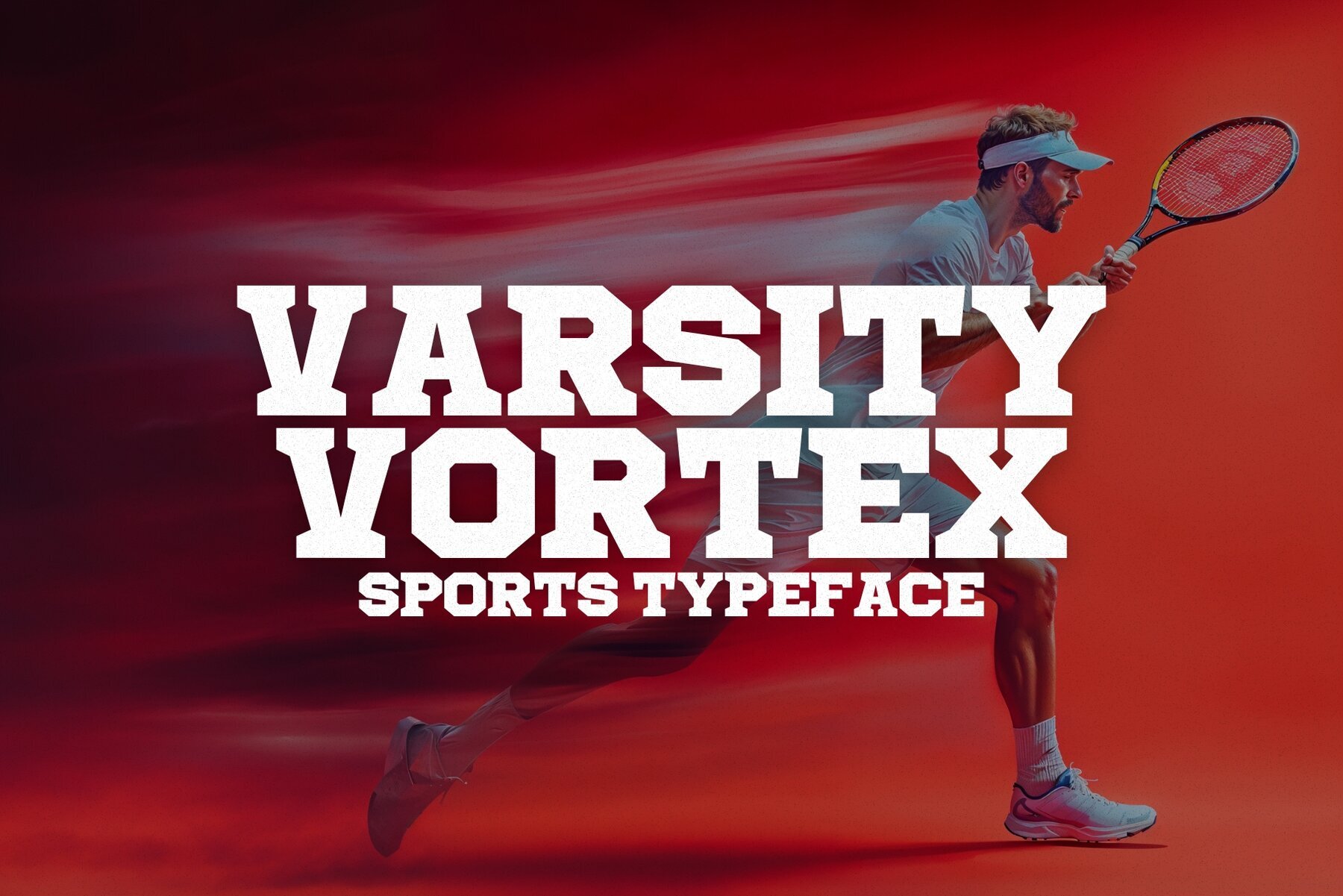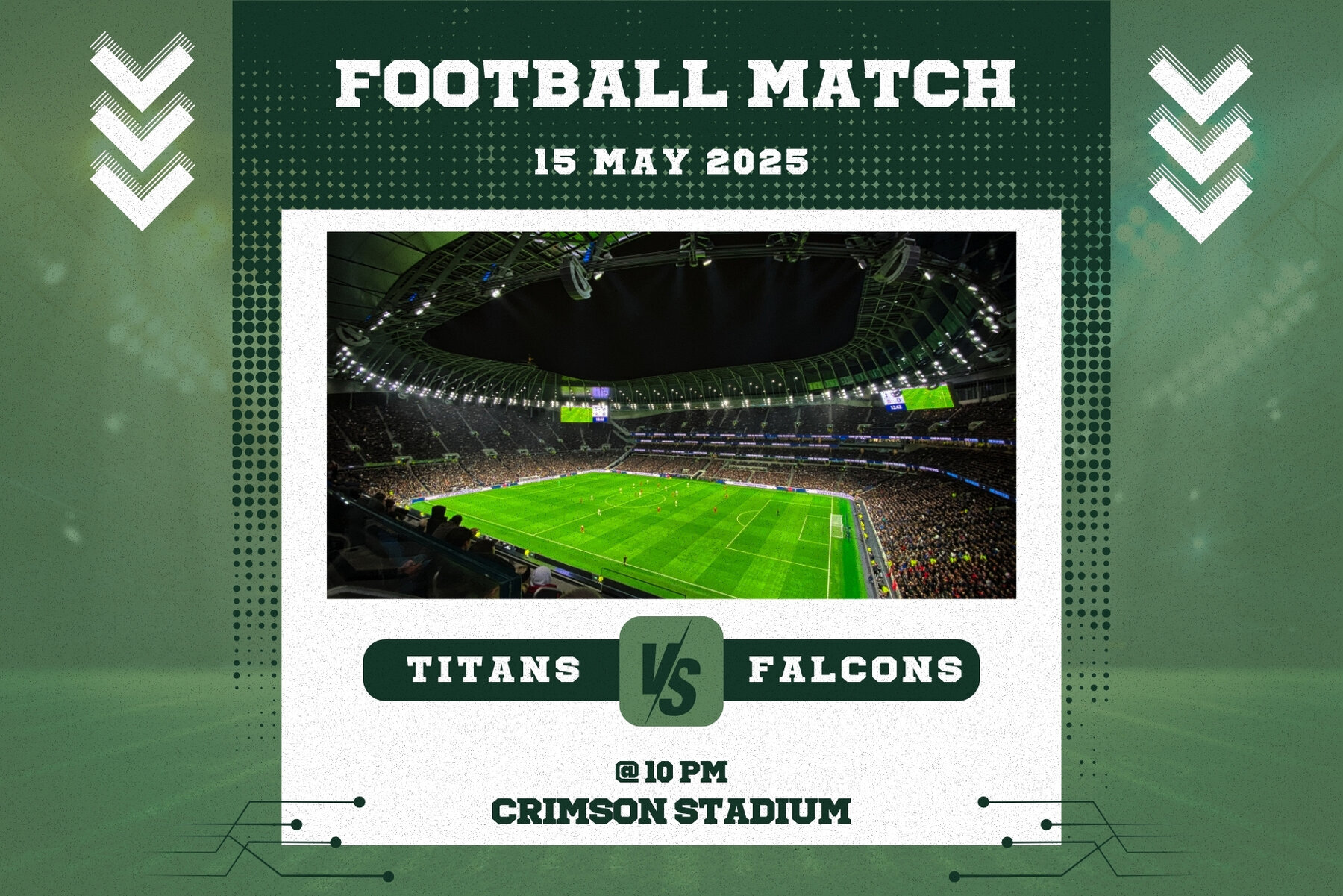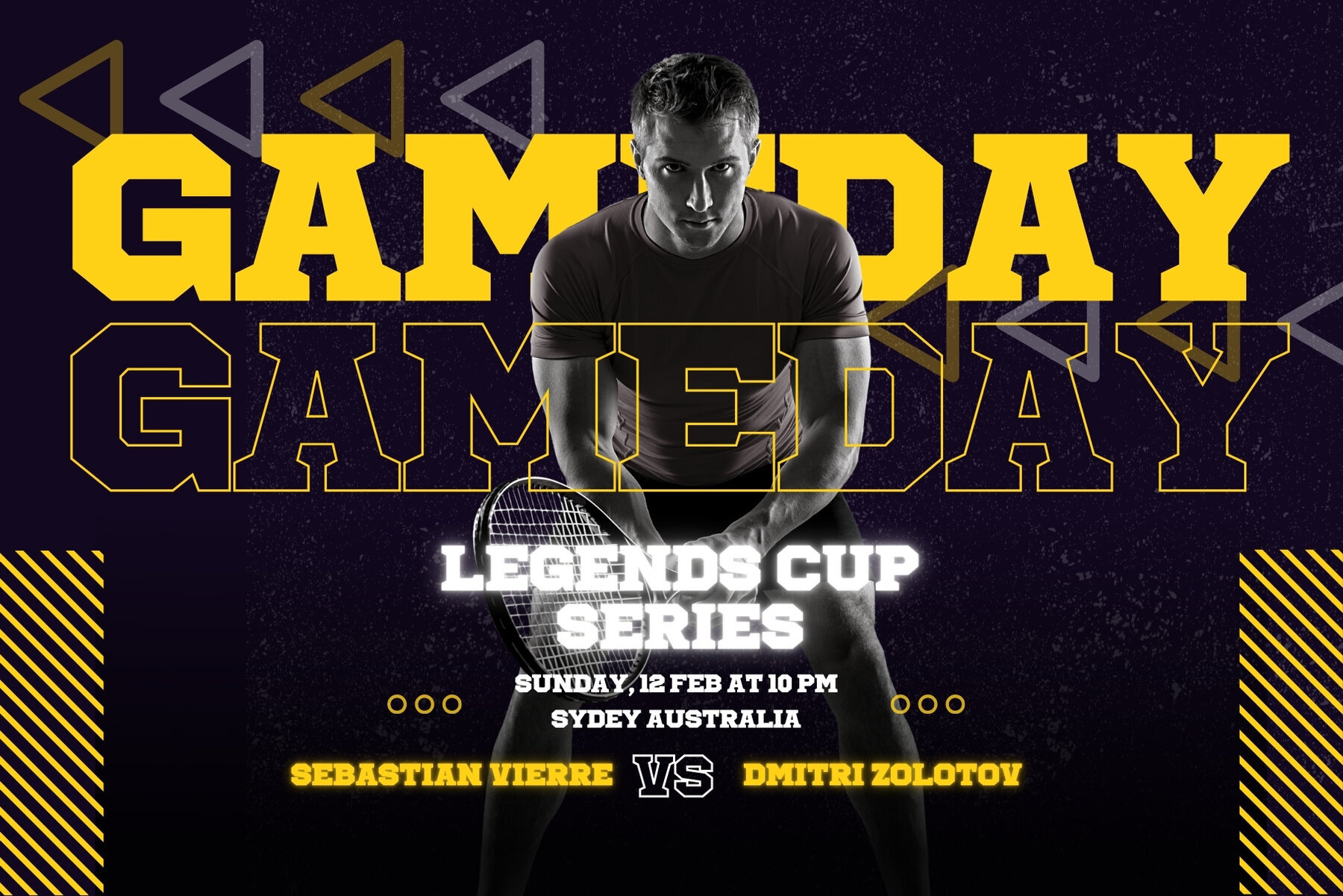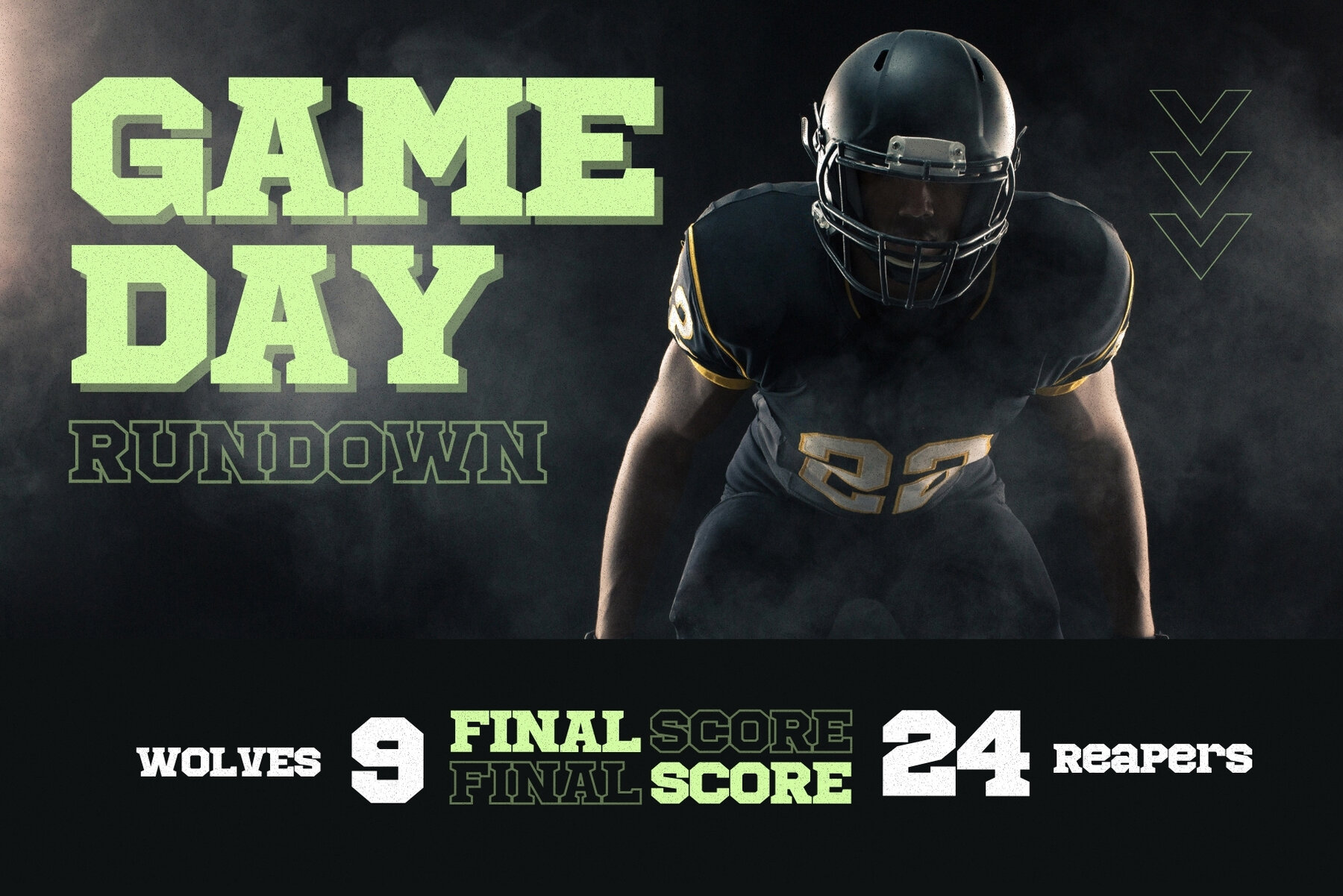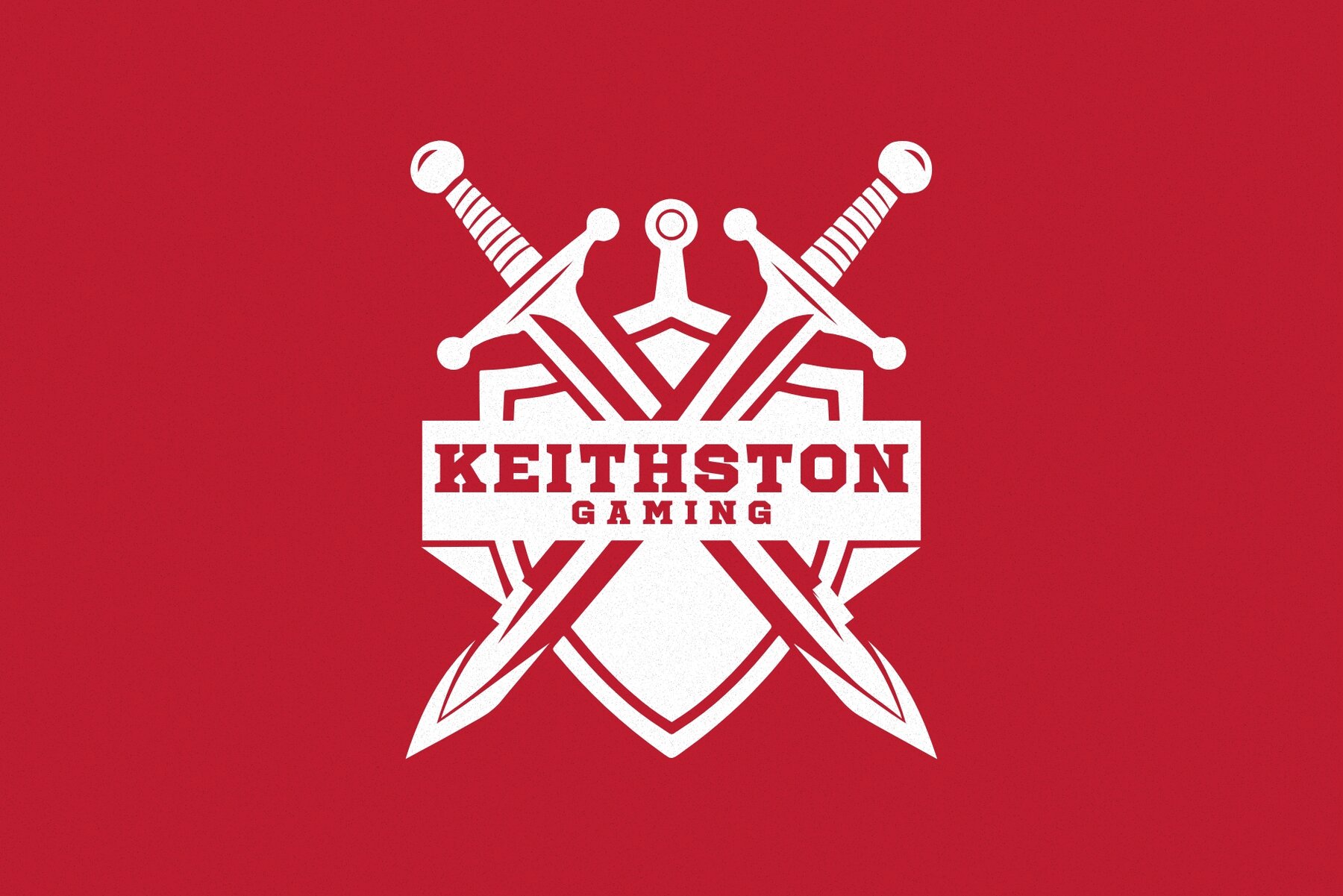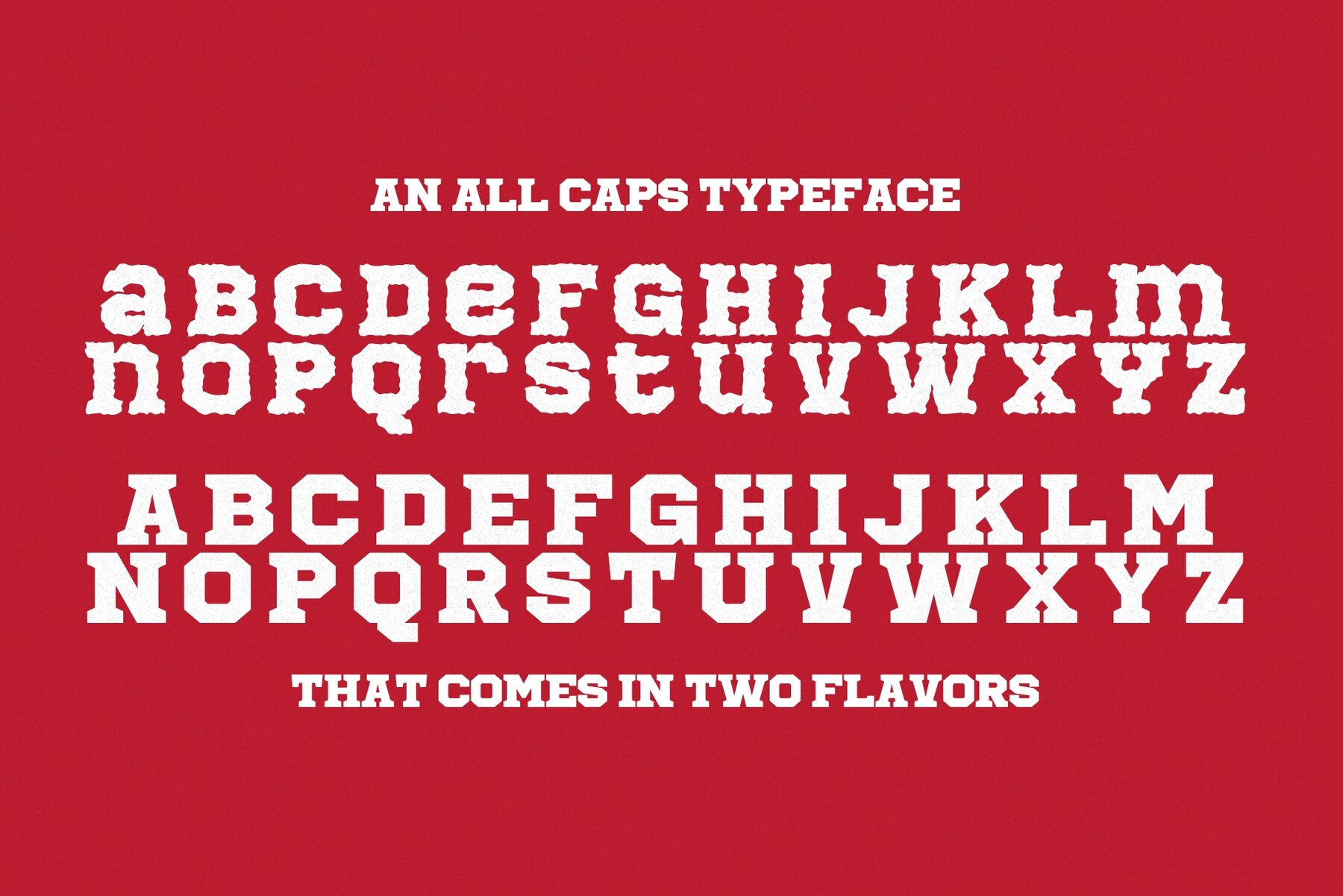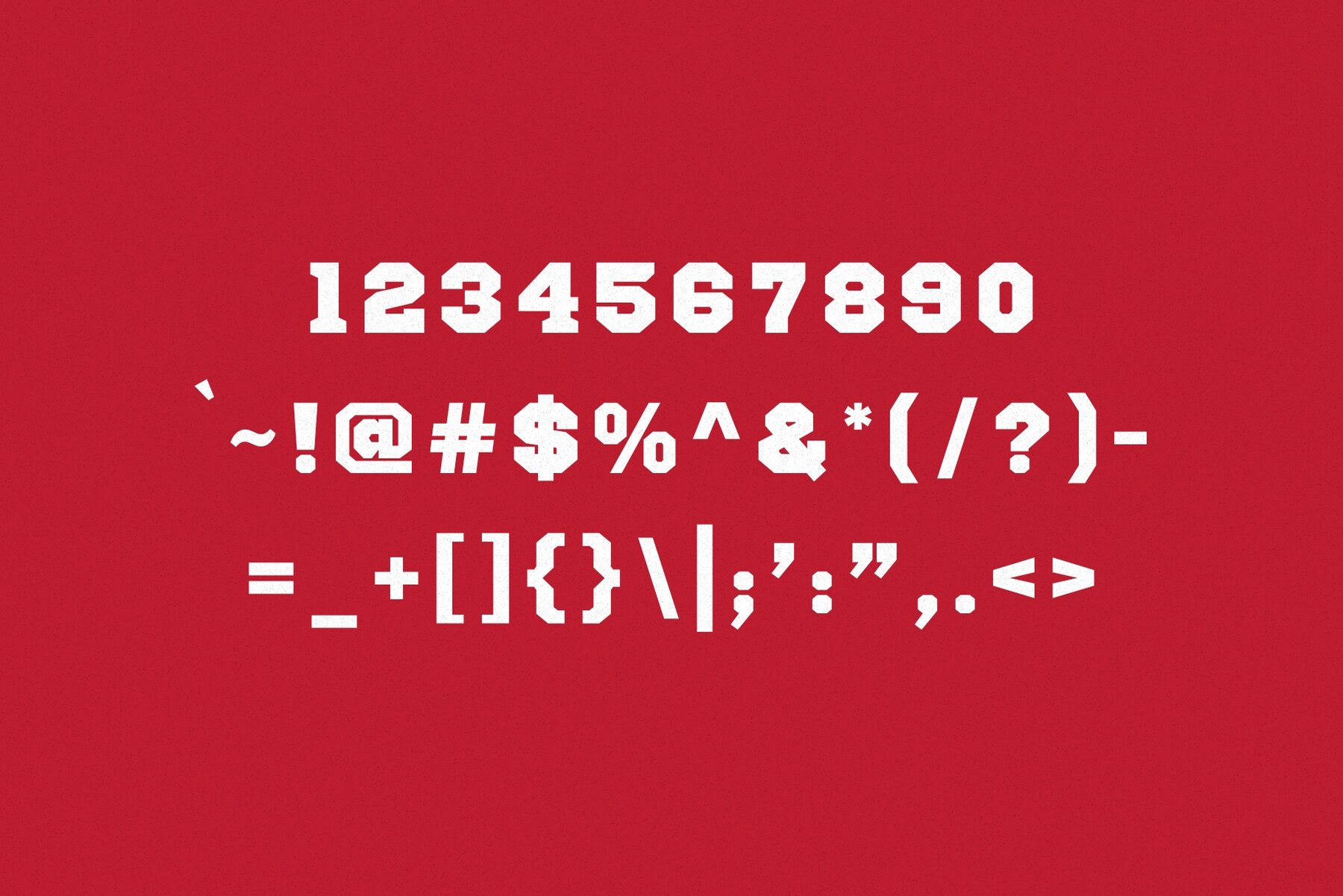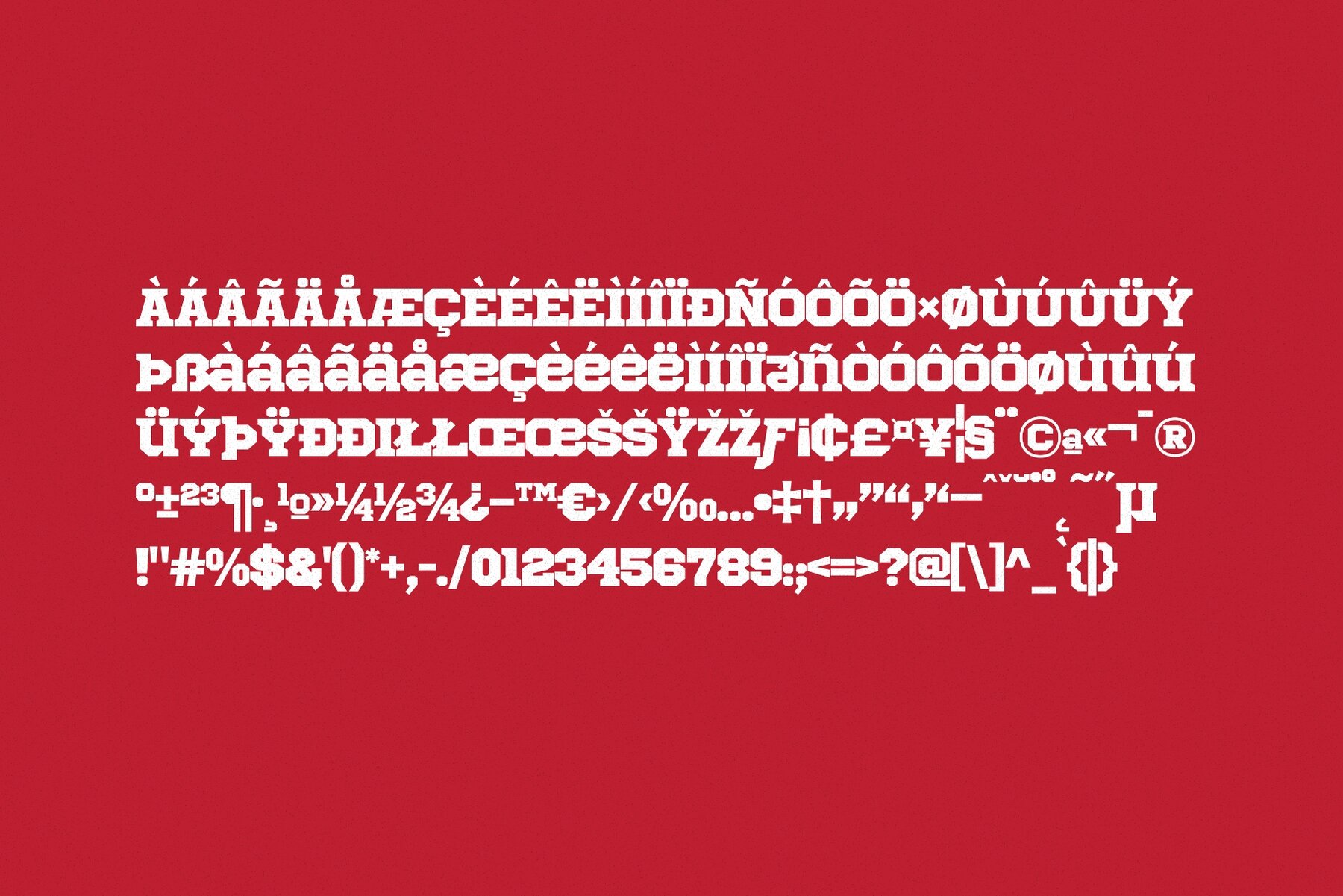
Varsity Vortex Font
Varsity Vortex captures the essence of athletic energy with its bold and commanding presence. Built for champions, this typeface embodies strength, determination, and team spirit, making it ideal for any serious sports brand, club, or event. Its versatility shines through in banners, flyers, uniforms, and branding projects. Whether you're promoting the big game, designing vibrant social media graphics, or creating dynamic marketing materials, Varsity Vortex is your go-to choice for visual impact. Elevate your designs with this powerhouse font that's designed to stand out and make a statement.Varsity Vortex